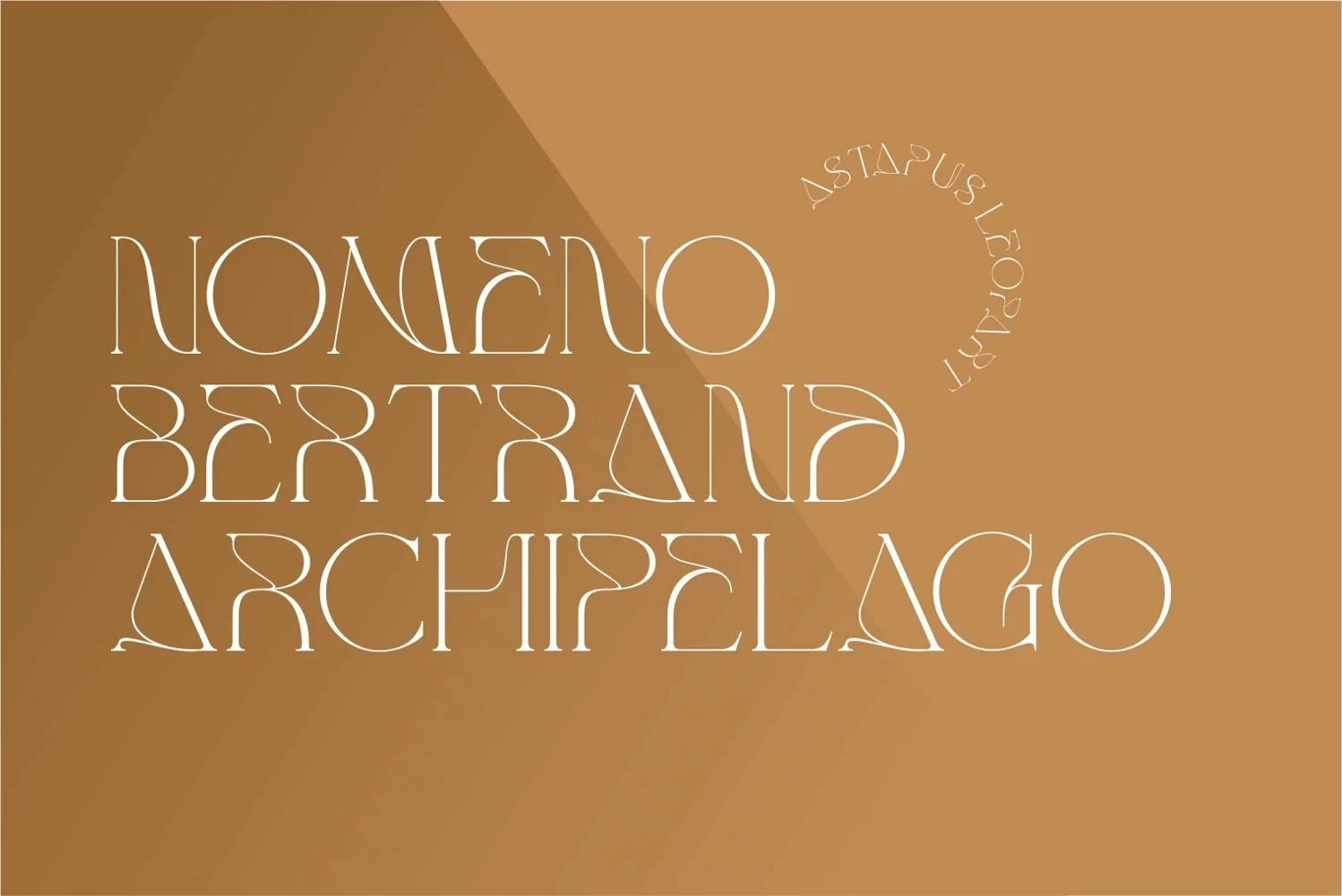
This font is a Modern Serif type, but tends to be more of a display font, this font is ideal for creating a logo and title for a magazine or product promotion, and can be used from titles to assets in feature film productions.